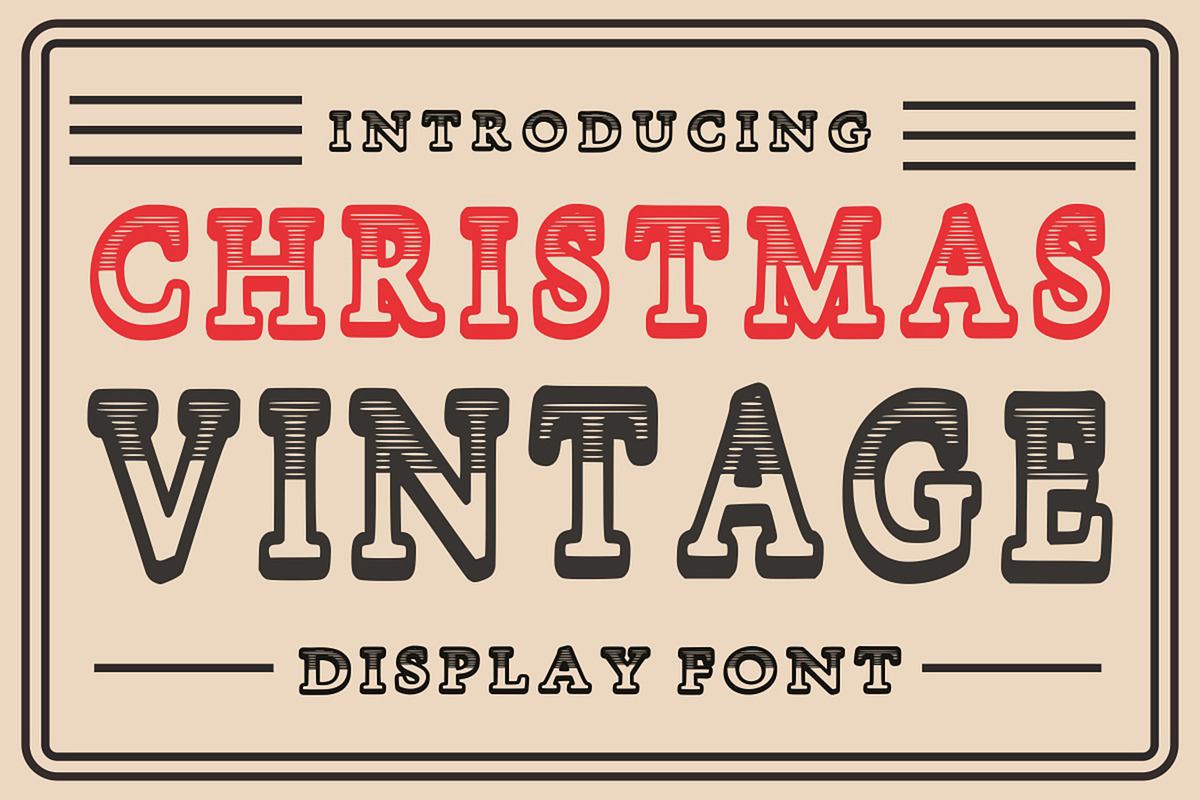
Christmas Vintage - Retro Font Free Download
Christmas Vintage - Retro Font Free Download is a nostalgic and festive typeface that brings classic holiday charm to your seasonal designs. Inspired by mid-century lettering and retro holiday cards, this font features playful curves, bold lines, and a warm vintage feel that instantly evokes cozy Christmas memories.
Perfect for greeting cards, holiday signage, product packaging, and festive social media graphics, Christmas Vintage - Retro Font Free Download adds that old-school magic your designs need. Whether you're designing a Christmas market poster or a holiday gift tag, this font delivers personality and cheer.
Its unique retro style sets it apart from modern fonts, making it an ideal choice for standout holiday branding. Try it for free in your test projects, but please remember—commercial use requires a proper license. Bring the spirit of classic Christmas to life with this charming vintage font!